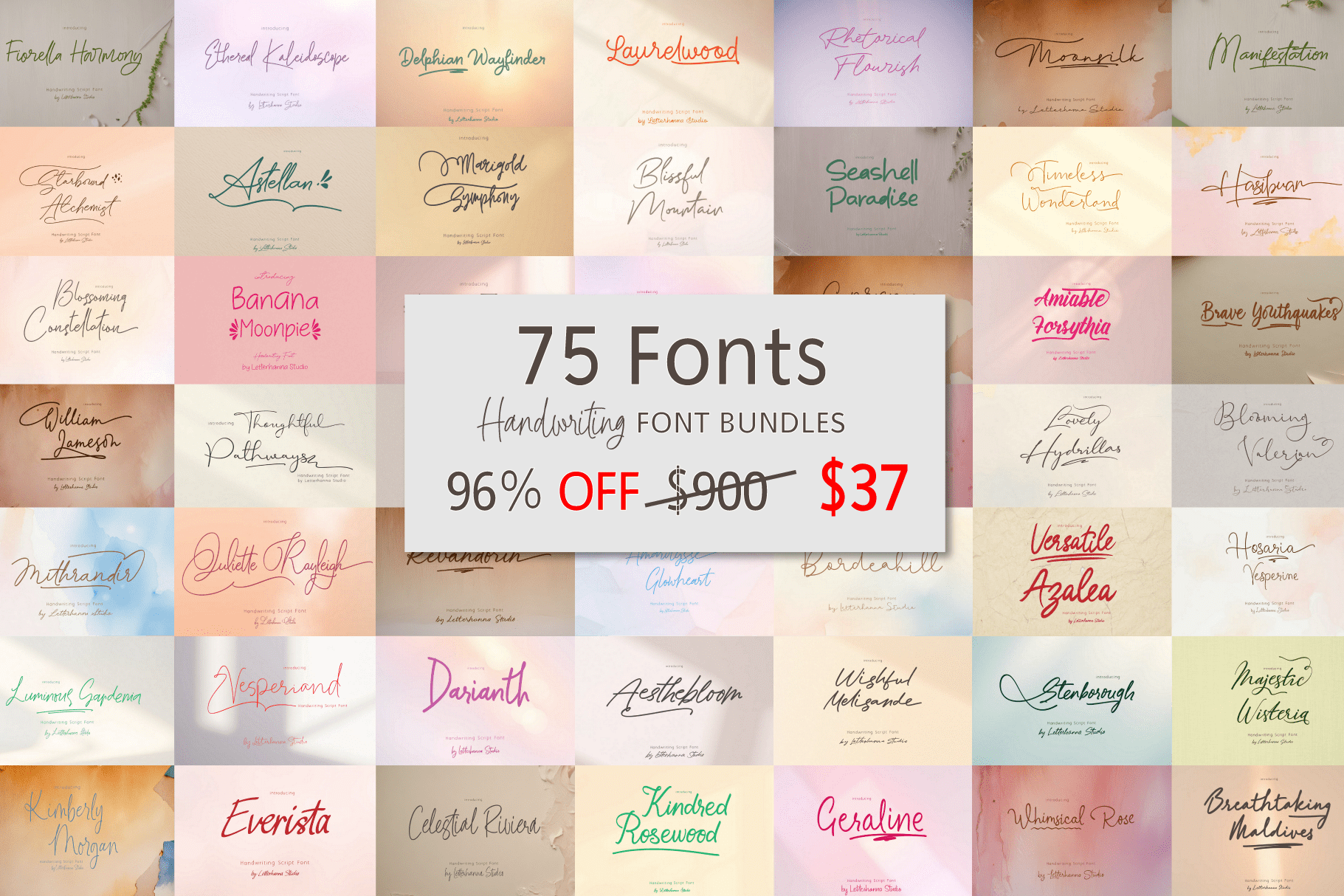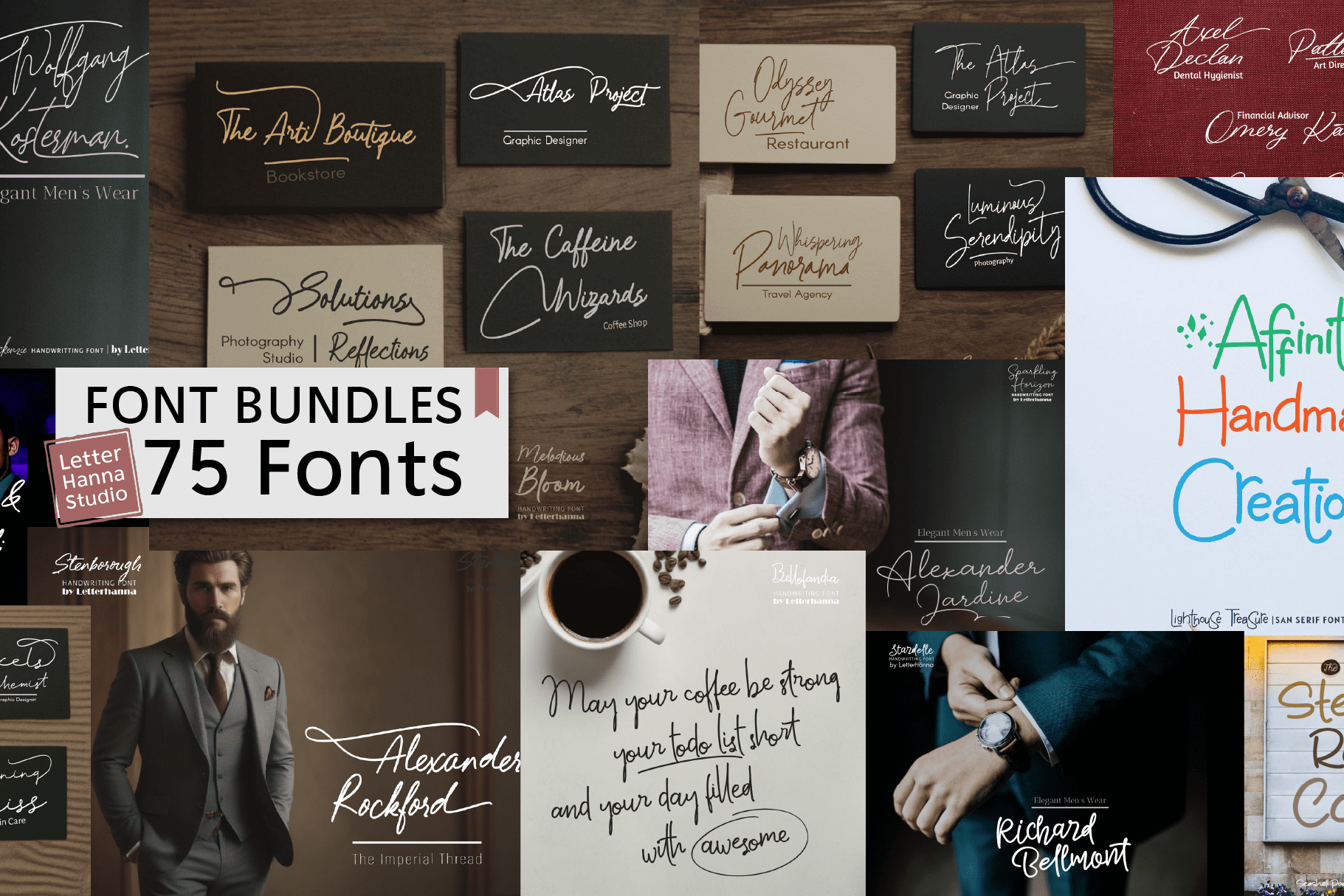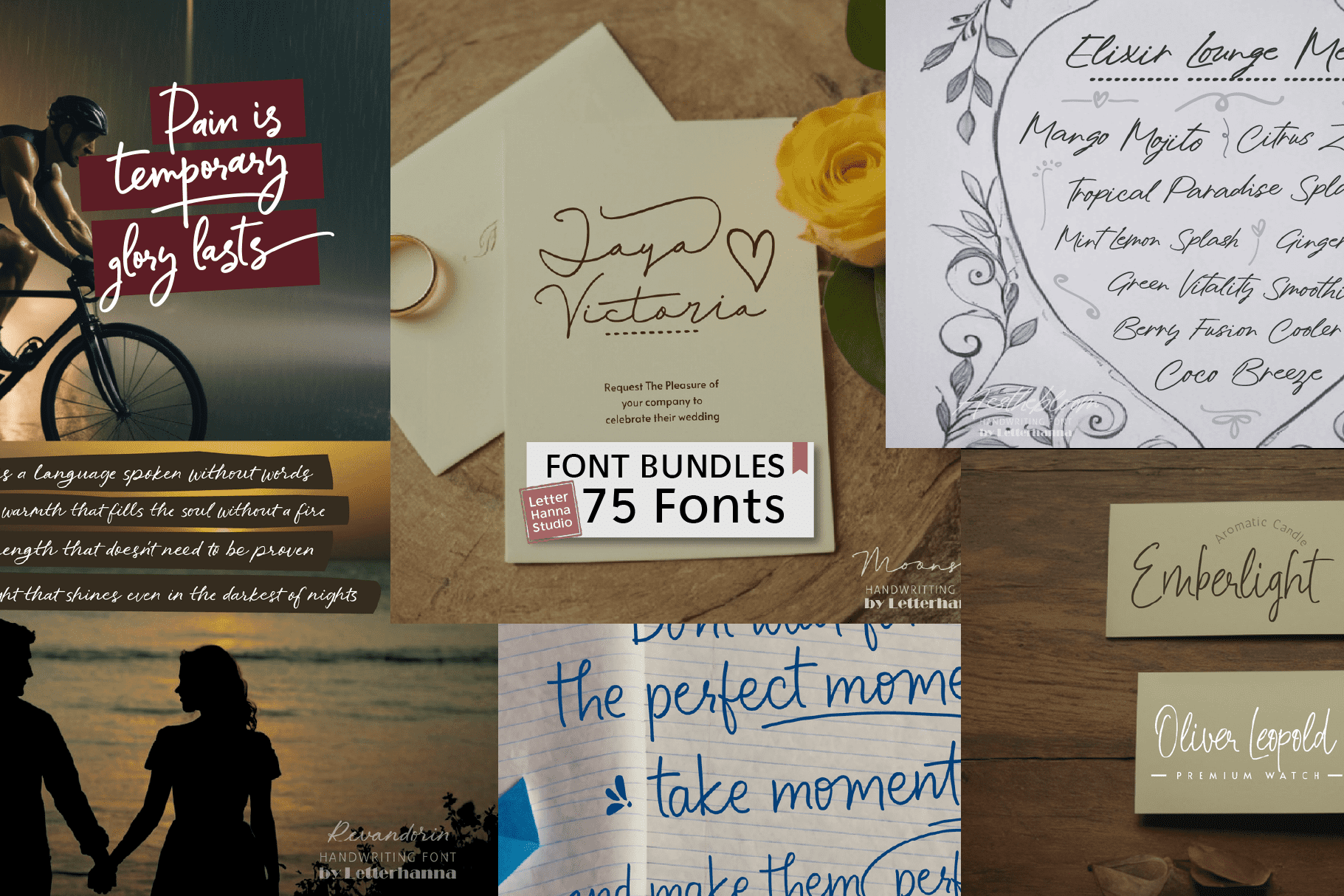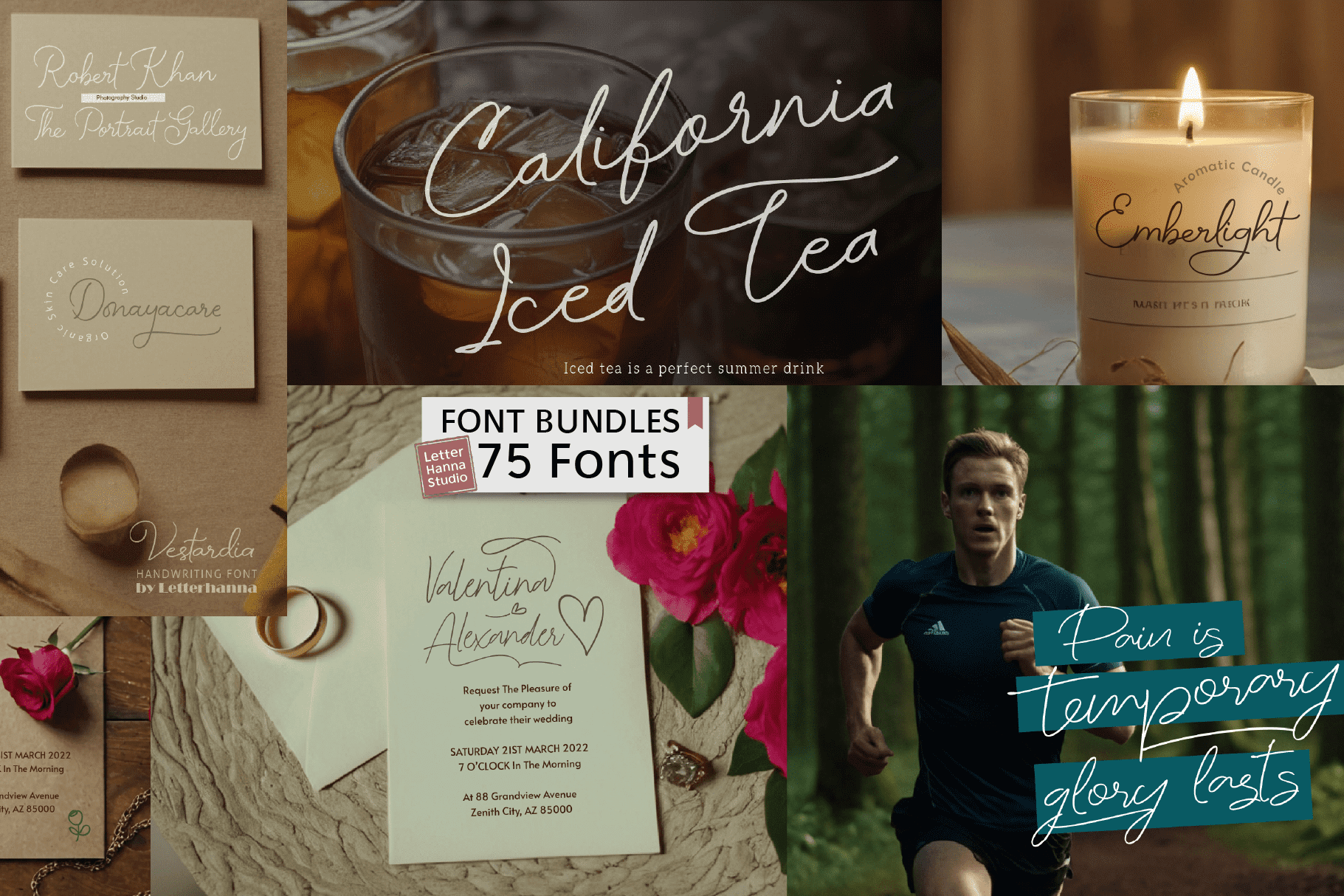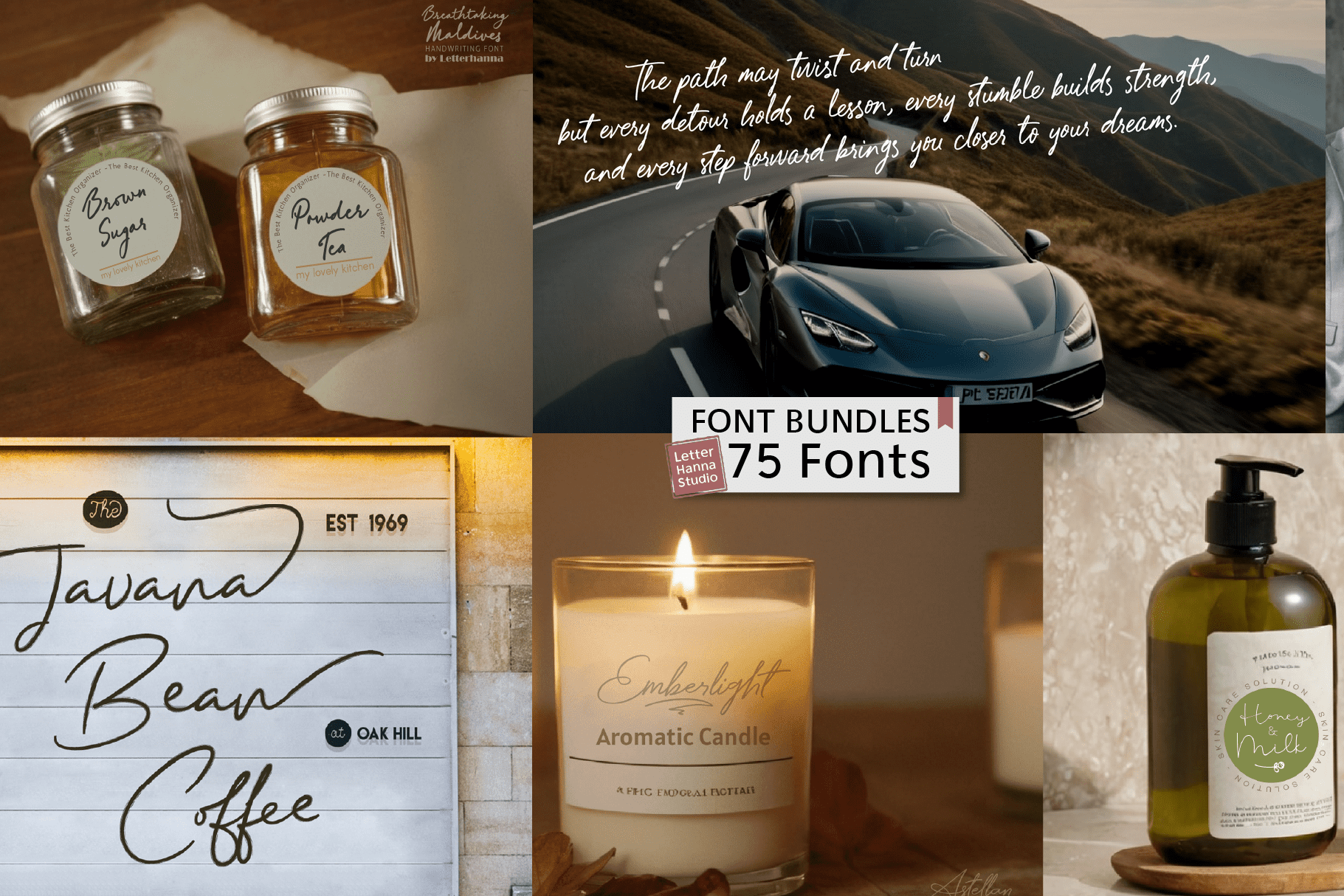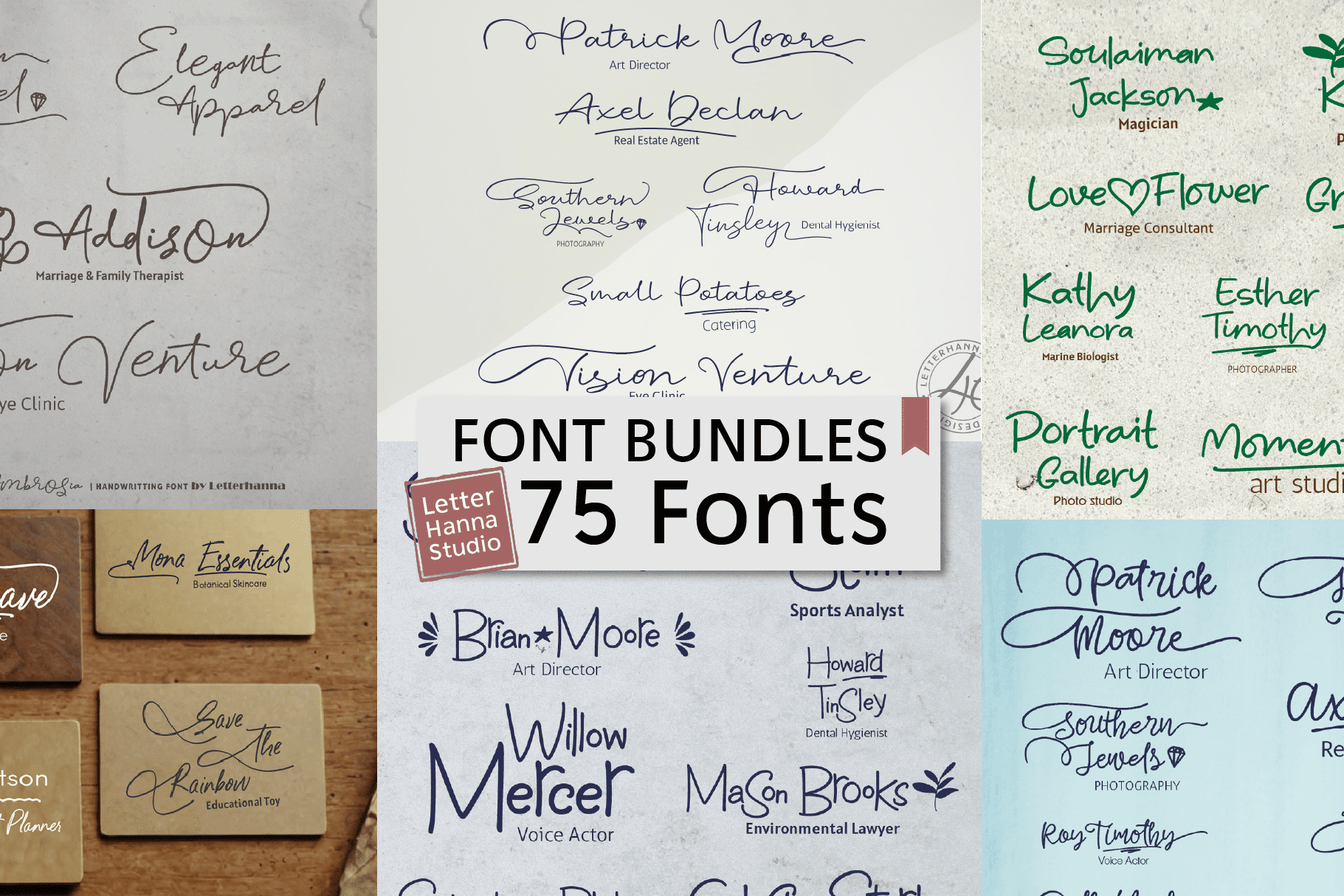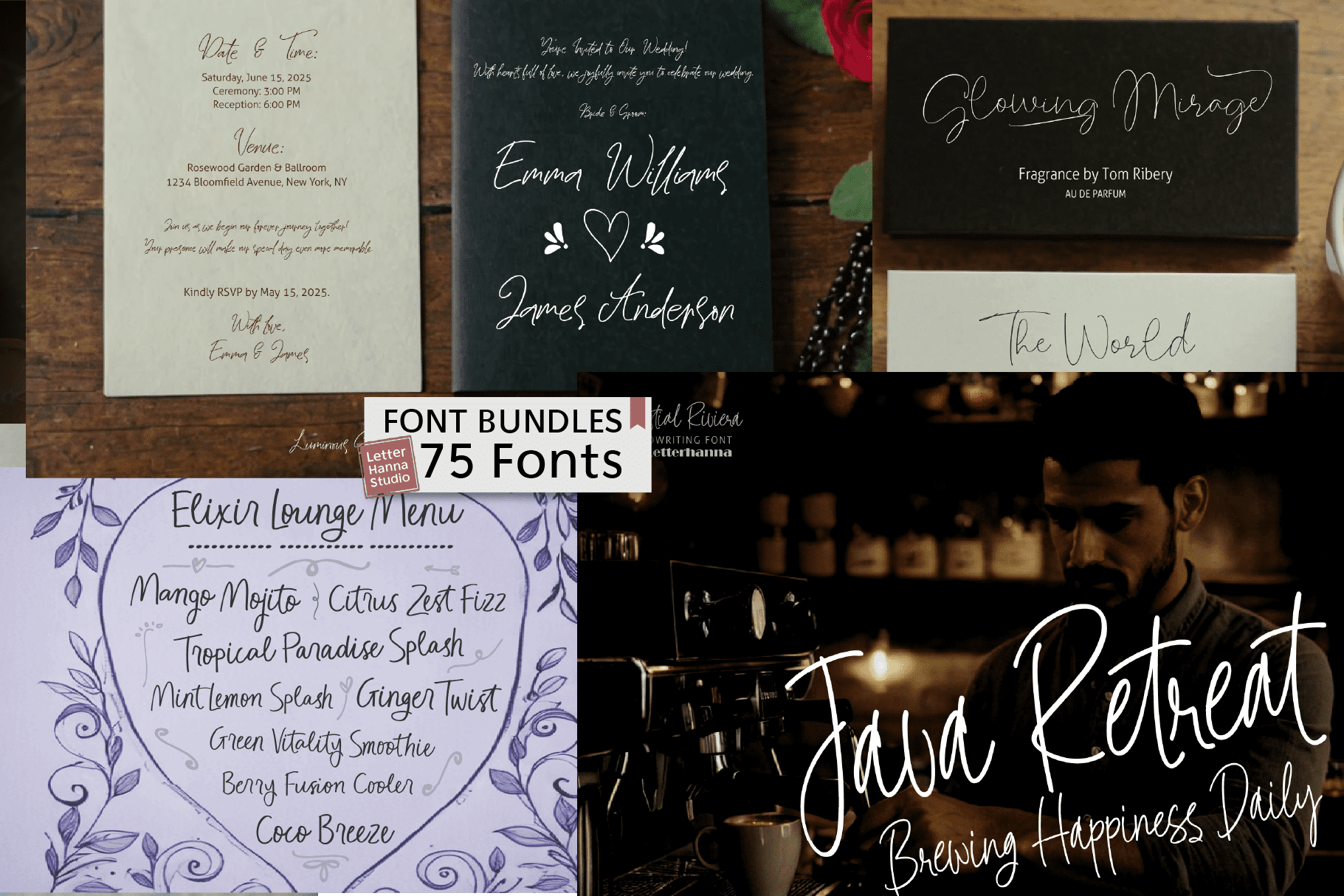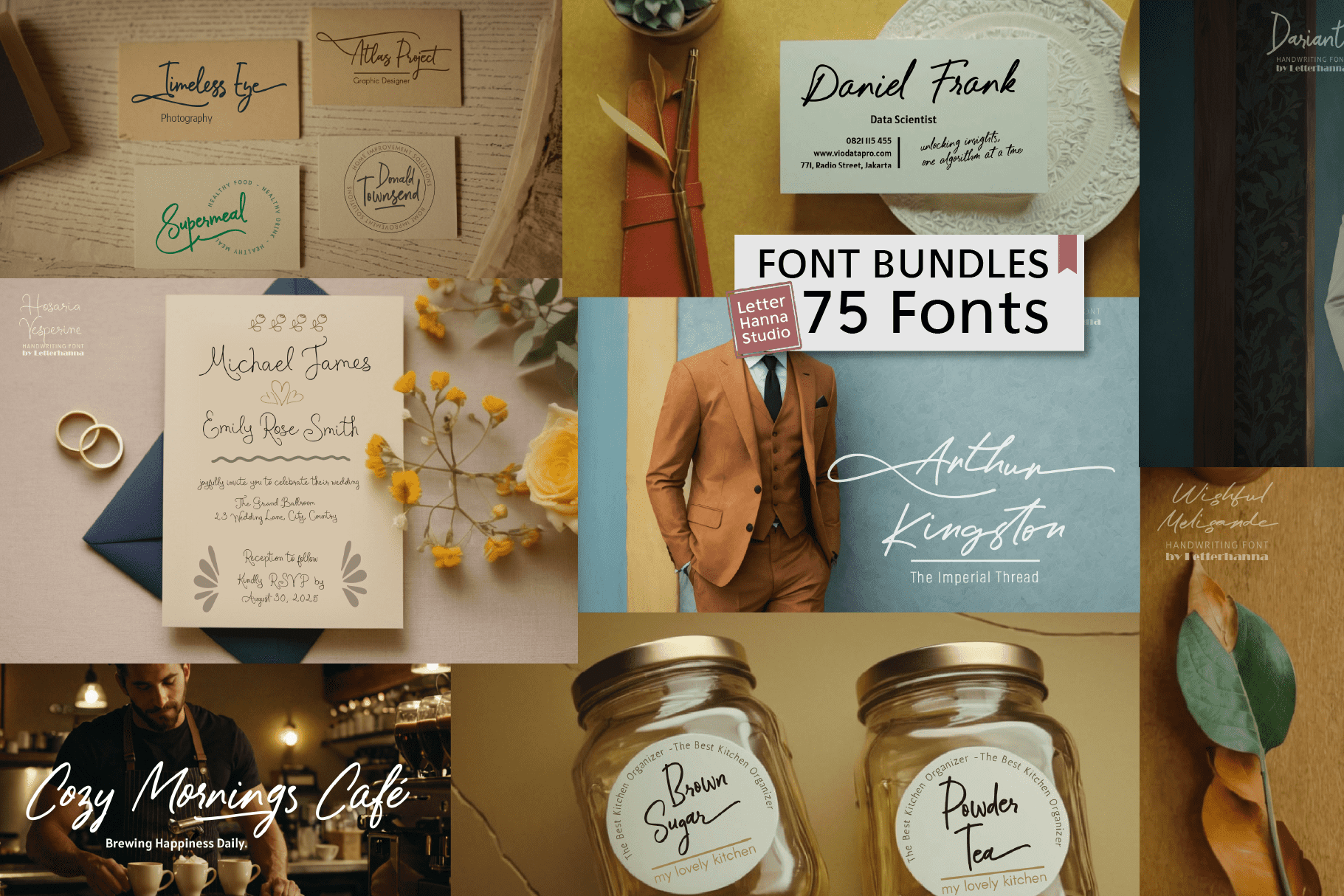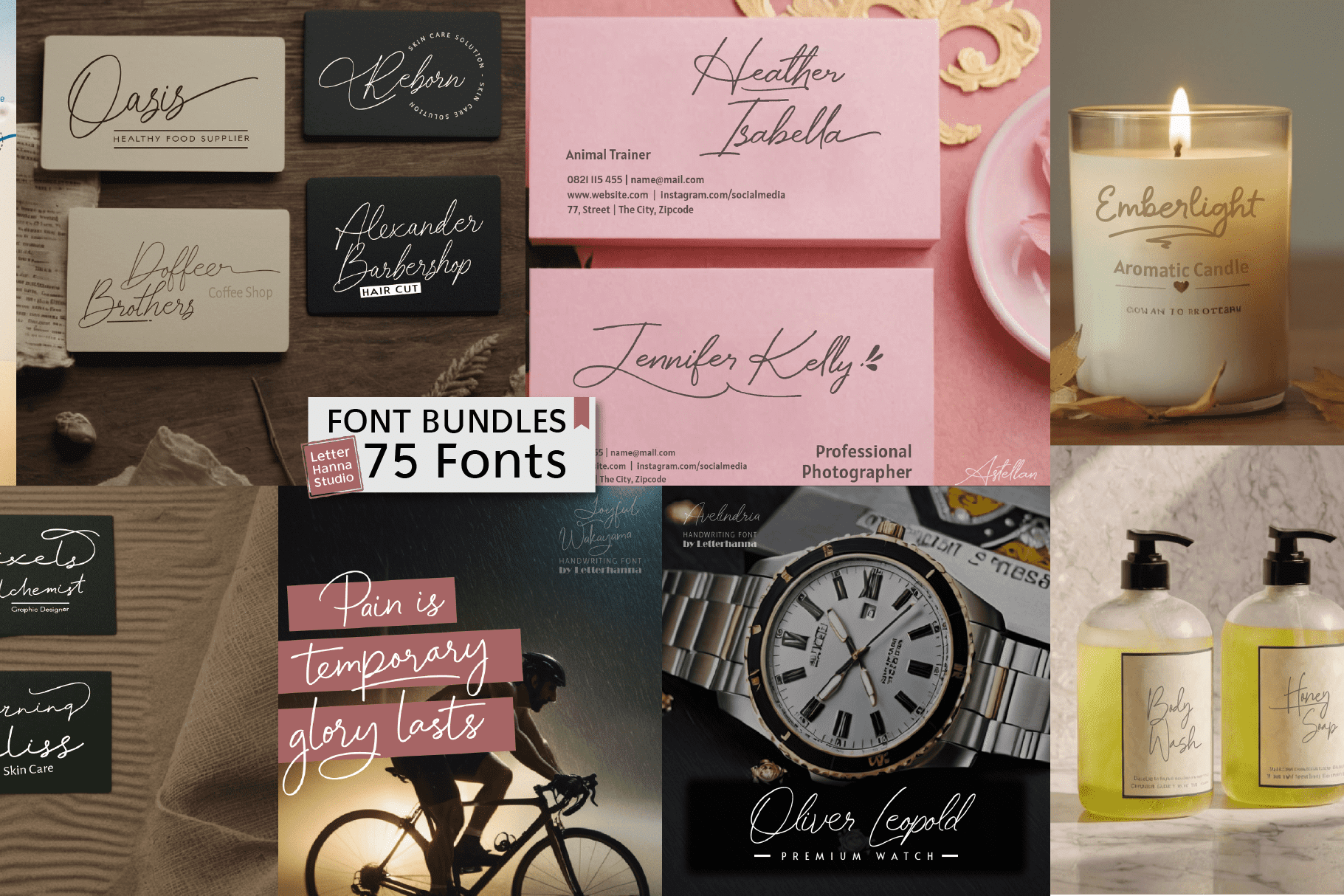
75 Handwritten Fonts Bundle
βœ… 75+ Handwriting Fonts in various styles: script, signature, cute, modern, brush, and more
βœ… Made by Studio Letterhanna – 100% original, handcrafted fonts
Abellaice ⭐ Aesthebloom ⭐ Alluring Delight ⭐ Amarilysse Glowheart ⭐ Amiable Forsythia ⭐ Angelina Malika ⭐ Astellan ⭐ Avelindria ⭐ Awesome Panda ⭐ Banana Moonpie ⭐ Bellofandia ⭐ Bingkisan ⭐ Blissful Mountain ⭐ Blooming Valerian ⭐ Blossoming Constellation ⭐ Bohemian Cassidy ⭐ Bordeahill ⭐ Brave Youthquakes ⭐ Breathtaking Maldives ⭐ Brightsouth ⭐ Butterfly Serenade ⭐ Capricious Ambrosia ⭐ Celestial Riviera ⭐ Darianth ⭐ Delphian Wayfinder ⭐ Dithagenas ⭐ Ethereal Kaleidoscope ⭐ Everista ⭐ Fiorella Harmony ⭐ Geraline ⭐ Groovy Soumaya ⭐ Hasibuan ⭐ Hazelianth ⭐ Hesperantha ⭐ Hosaria Vesperine ⭐ Hosperity ⭐ Jettiares ⭐ Joyful Wakayama ⭐ Juliette Rayleigh ⭐ Kimberly Morgan ⭐ Kindred Rosewood ⭐ Laurelwood ⭐ Lighthouse Treasure ⭐ Lovely Hydrillas ⭐ Luminous Gardenia ⭐ Magical Journey ⭐ Majestic Wisteria ⭐ Manifestation ⭐ Marigold Symphony ⭐ Melodious Bloom ⭐ Mithrandir ⭐ Moonsilk ⭐ Nevalona ⭐ Radiant Moonlight ⭐ Raspberry Bonanza ⭐ Ravishing Solidago ⭐ Revandorin ⭐ Rhetorical Flourish ⭐ scarlet mackenzie ⭐ Seashell Paradise ⭐ Slumbering Hedgehog ⭐ Sparkling Horizon ⭐ Starbound Alchemist ⭐ Stardelle ⭐ Steadfast Valerio ⭐ Stenborough ⭐ Thoughtful Pathways ⭐ Timeless Wonderland ⭐ Versatile Azalea ⭐ Vesperiand ⭐ Vestardia ⭐ Whimsical Rose ⭐ William Jameson ⭐ Wishful Melisande ⭐ Zara Amorett ⭐
– Uppercase and Lowercase letters
– Numbering and Punctuations
– Multilingual Support
– Ligatures
– Beginning and ending swashes
– Underline swashes
– Stylistic alternate
– Ornaments
– Easy access swash just by using ligatures